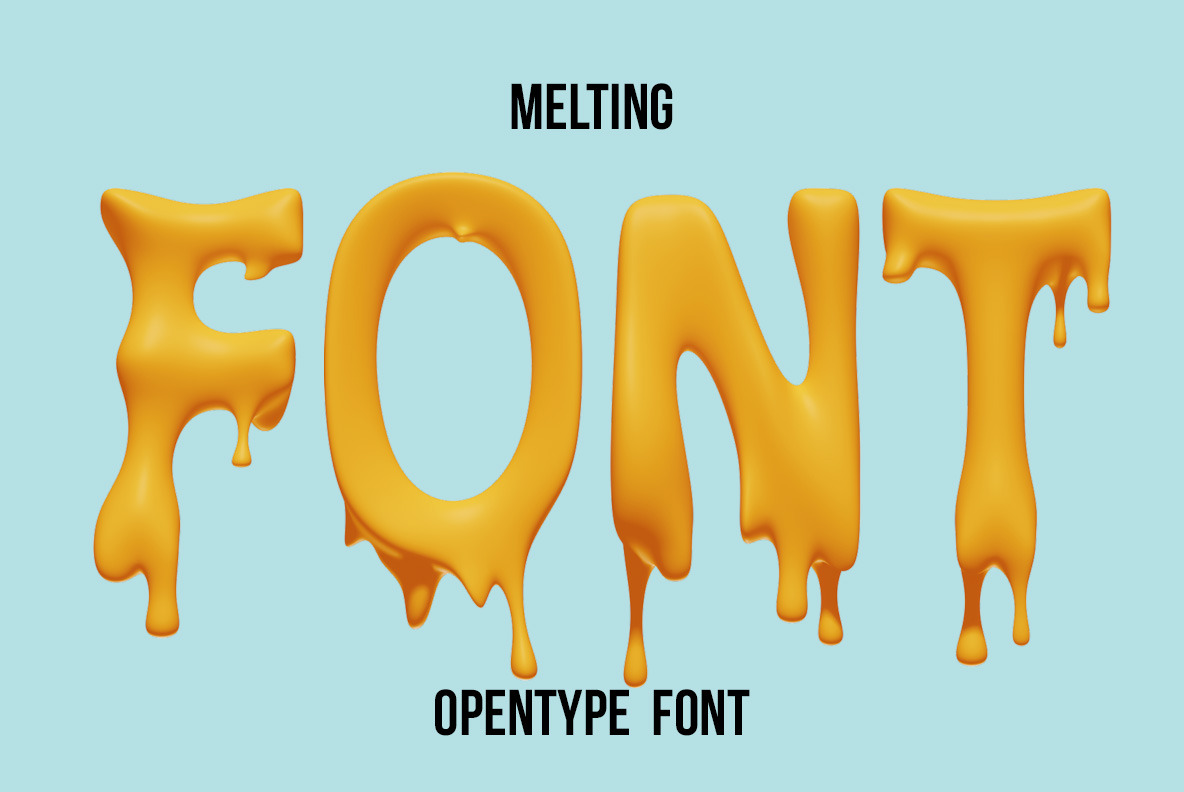
Melting Font
Melting Font brings playful warmth to typography with glossy yellow letters that appear to soften, stretch, and drip. Rounded shapes, flowing edges, and dimensional highlights create a rich liquid effect reminiscent of melted cheese, butter, or golden candy. Its expressive character makes it ideal for food packaging, bold posters, cheerful branding, social media graphics, and imaginative advertising. Available as an OTF font, it also includes every letter separately as a PNG image with a transparent background, giving designers flexible composition options. Turn simple words into delicious visual statements with a font that feels vibrant, tactile, humorous, and impossible to ignore.